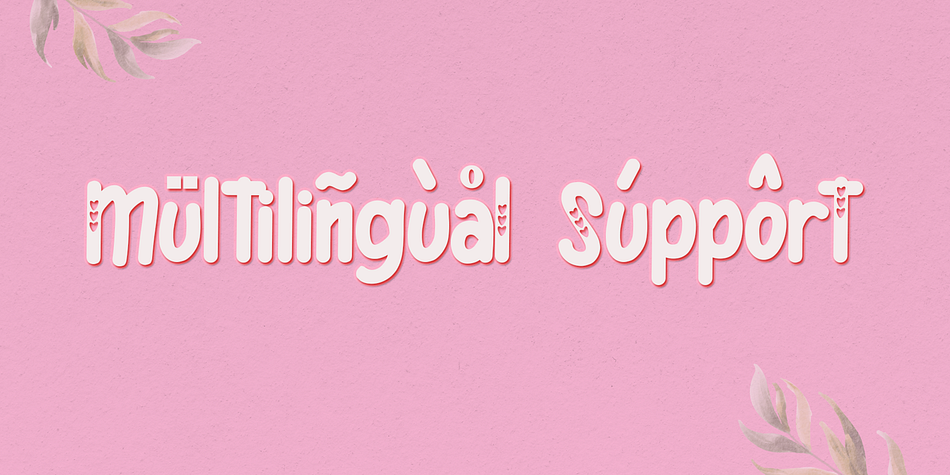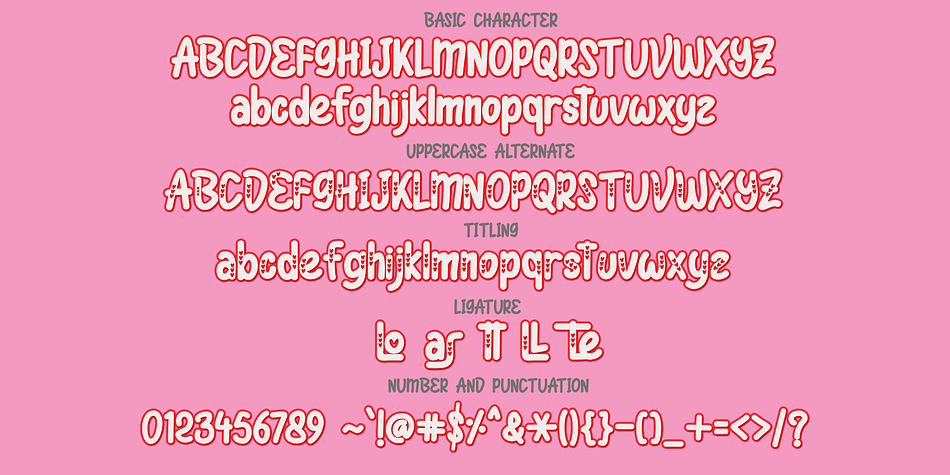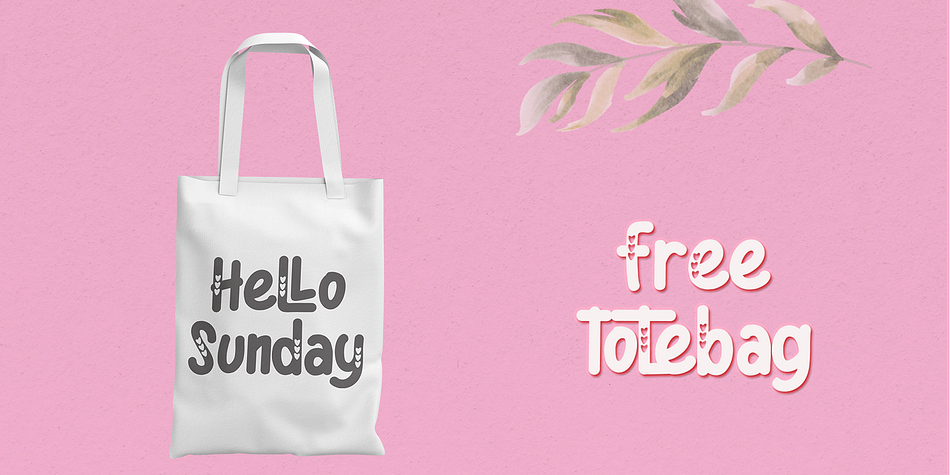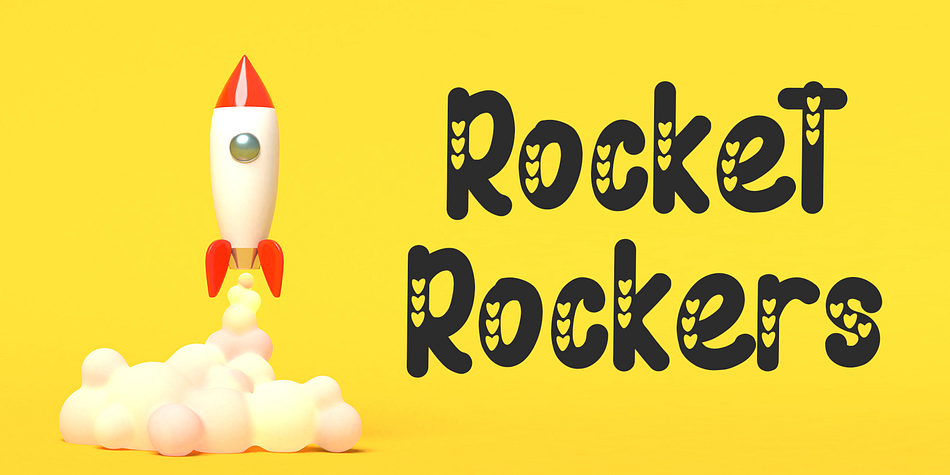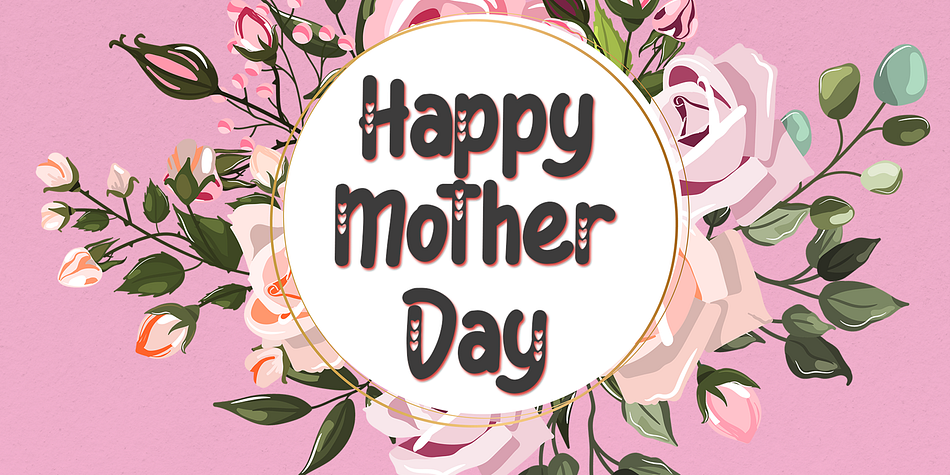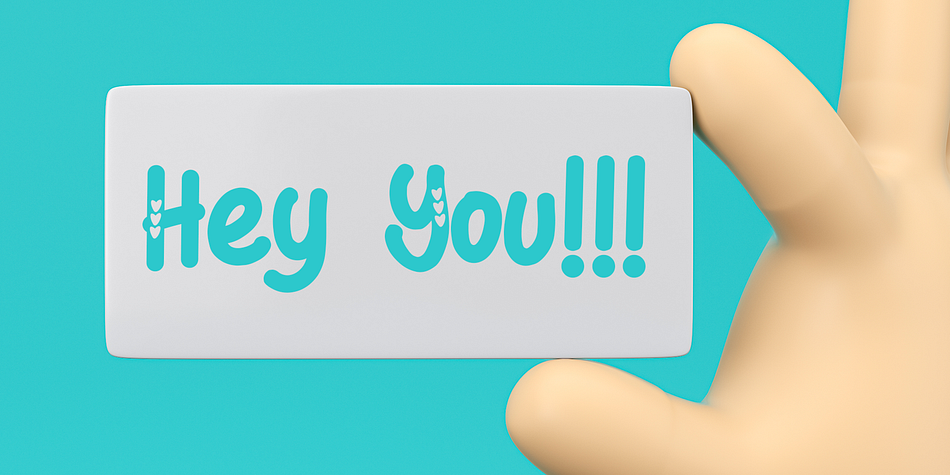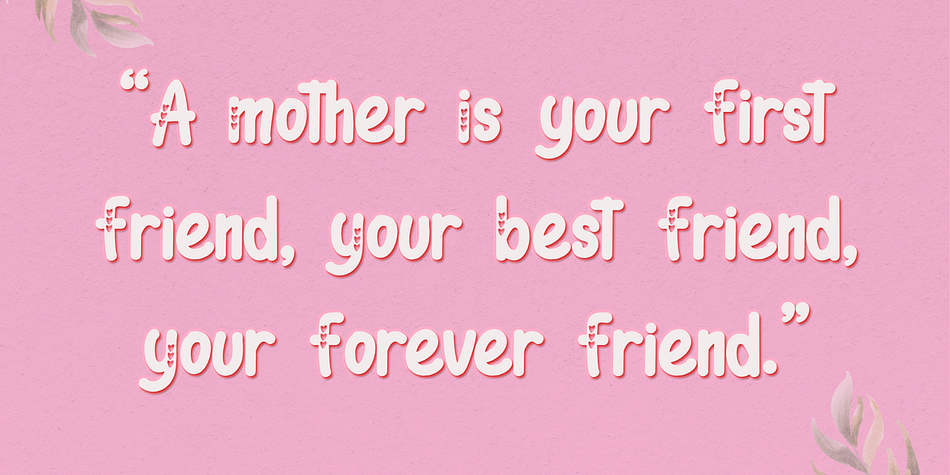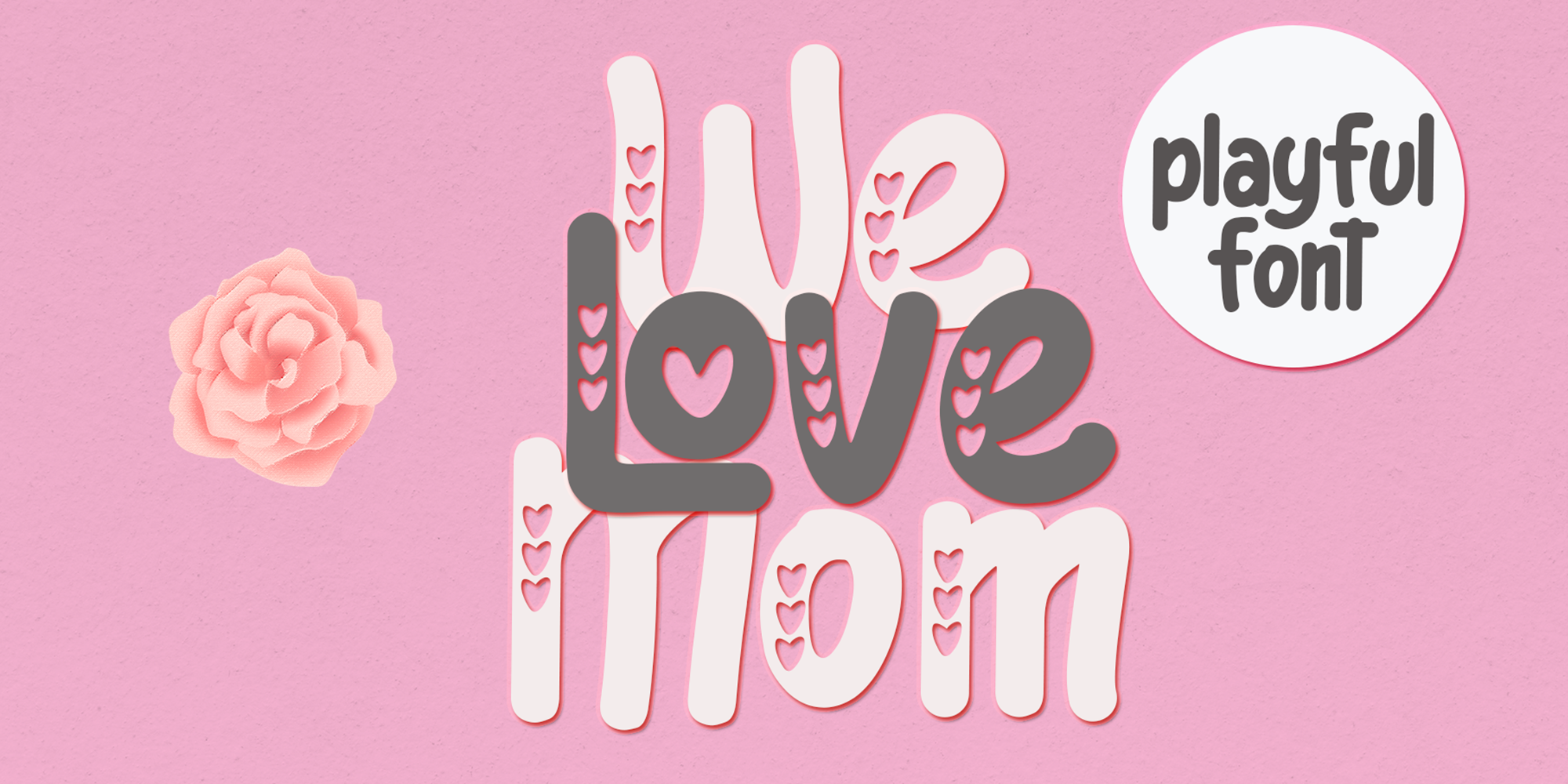
We Love Mom
We Love Mom is a brush display font family published by Letterafa Studio.
We Love Mom is a fabulous, elegant, and modern display font that’ll engage your audience and make your branding stand out. This stylish font can be used for a host of different content needs and projects. Perfect for social media branding projects, fashion designs, printed quotes, or even as a stylish text overlay to any background image and many more!